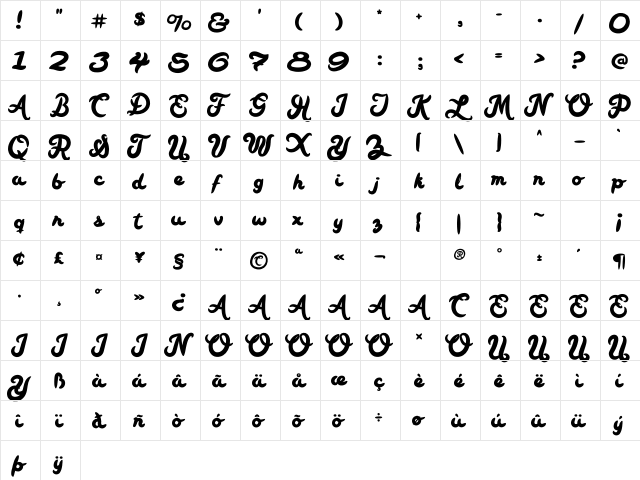
Carmela Script
| Style | Script |
| Foundry | Don Marciano |
| Designer | Juan Miguel Castillo Romero |
Carmela brings a calligraphic fluidity to the page — its connecting strokes and expressive curves give it an unmistakably human quality.